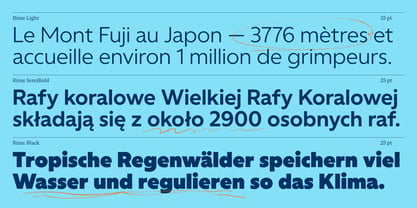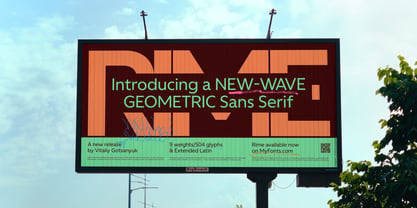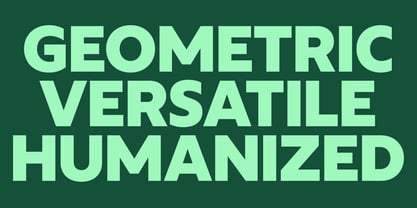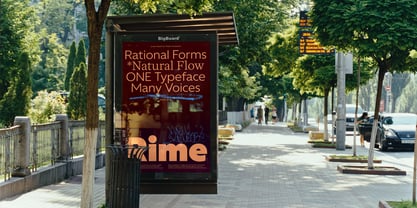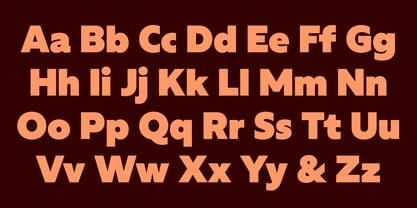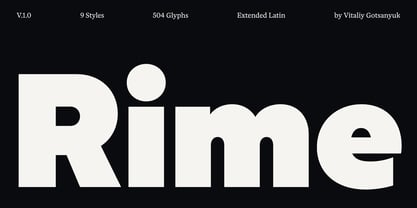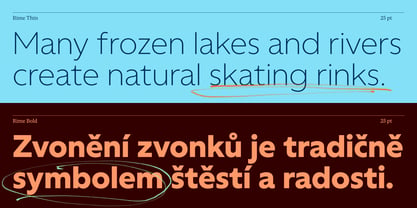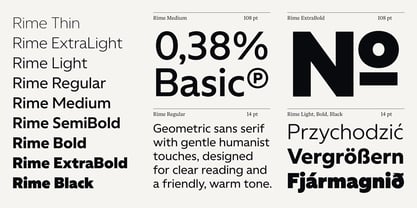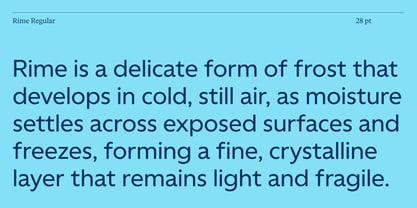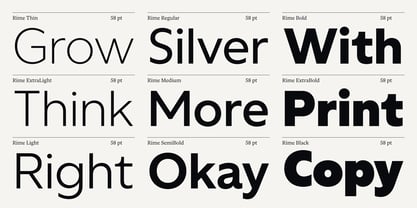
The Rime Font Family was designed by Vitalii Hotsaniuk and published by Vitaliy Gotsanyuk. Rime contains 9 styles and family package options. More about this family
Rime is a geometric new-wave sans serif. A workhorse that is based on maintaining geometric structure with a subtle humanist inclination. Its light dynamics, low contrast, and open forms are the defining features of the typeface, creating a sense of simplicity and warmth. Designed to perform well in both minimalist layouts and expressive display applications, the wide range of weights allows flexible use of the typeface — from small text sizes to headlines of various scales. Features: – Total glyph set: 504 glyphs; – Support 200+ languages; – Latin Extended; – 9 styles. OpenType features: – Uppercase, lowercase; – Proportional, tabular numerals, superiors, inferiors, fractions; – Ordinals; – Punctuations and symbols; – Case-sensitive forms; – Ligatures.
Designers: Vitalii Hotsaniuk
Foundry: Vitaliy Gotsanyuk
Rime